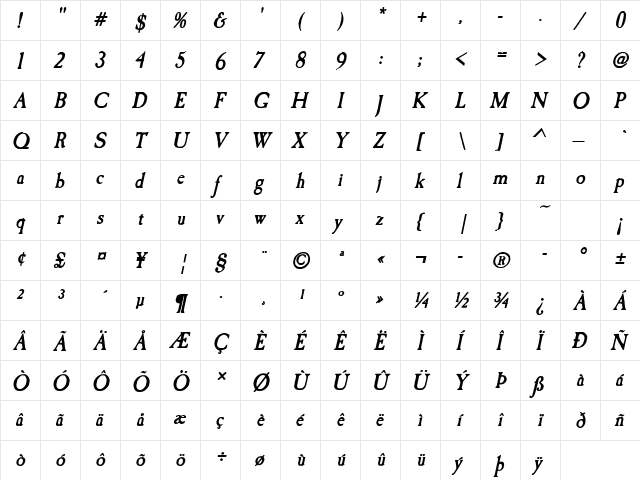
Caslon Antique Bold Italic Font Preview
Design Context for Caslon Antique Typeface
Caslon Antique has the warm character of retro typography — evoking diners, record sleeves, and the golden age of print advertising. The dynamic lean of this cut emphasises speed and emphasis in any layout. The heavy weight commands attention and anchors typographic hierarchies.
Perfect for vintage-inspired branding, retro packaging, nostalgia campaigns, and period-accurate editorial design.
Font Pairing: Combine Caslon Antique with a simple slab or neutral sans — period-accurate companions reinforce the vintage feel without competing for attention.
Pro Tip: Use Caslon Antique for headlines and pull quotes rather than body copy — its personality is best appreciated in short, focused bursts.